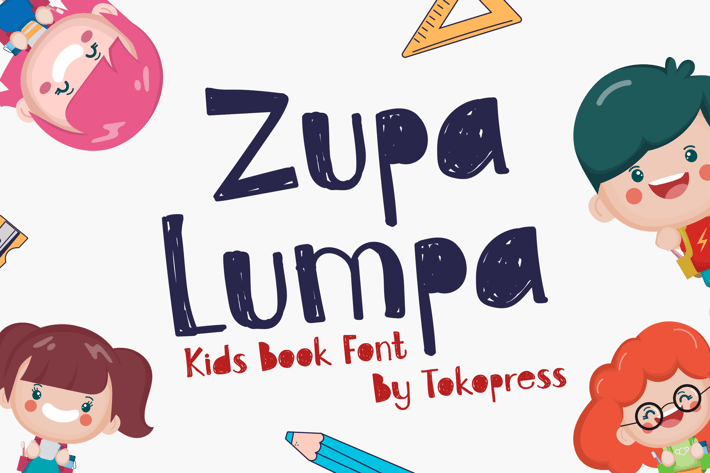
Zupa Lumpa- Cute kids font
Zupa Lumpa- Cute Kids Font
Bring your playful projects to life with Zupa Lumpa, a joyful kids display typeface featuring rounded shapes, soft curves, and a bouncy baseline for a friendly and hand-drawn vibe. Designed for child-centric content, this expressive and whimsical font adds warmth and personality to branding, school posters, and kids' apps with its gentle, cartoon-inspired letterforms.
Zupa Lumpa’s quirky structure and easy readability make it ideal for any creative space where fun, imagination, and clarity must coexist. Whether you’re crafting a fairy tale cover, a daycare flyer, or educational worksheets, its visual tone bridges cheerful energy with clear communication.
Perfect for children’s branding, playful product packaging, classroom resources, or editorial spreads in kids' magazines, Zupa Lumpa delivers a soft yet high-impact presence. Its rounded and dynamic flow taps into the emotional goals of educators, illustrators, and product designers looking to foster friendliness, safety, and trust in a young audience.
The font's vibrant personality works beautifully across both print and digital formats—think kids’ YouTube thumbnails, baby product labels, or storytelling apps. Zupa Lumpa brings a smile to every letter.
Key Features
Why You’ll Love Zupa Lumpa:
- Soft, Friendly Shapes: Carefully crafted with child-safe curves and bouncy proportions
- Whimsical Character: Adds charm and voice to any design for younger audiences
- Highly Versatile: Works across packaging, apps, posters, labels, and storybooks
- Balanced Readability: Playful yet functional—readable even in energetic layouts
- Memorable Style: Perfect for strong branding in the kid-centric and toy industries
Ready to make your kid-focused designs more delightful and engaging? Add a dose of joy and personality to your next project with Zupa Lumpa. Whether you’re launching a storybook series or branding a daycare startup, this font is the perfect design companion.
Bring your playful projects to life with Zupa Lumpa, a joyful kids display typeface featuring rounded shapes, soft curves, and a bouncy baseline for a friendly and hand-drawn vibe. Designed for child-centric content, this expressive and whimsical font adds warmth and personality to branding, school posters, and kids' apps with its gentle, cartoon-inspired letterforms.
Zupa Lumpa’s quirky structure and easy readability make it ideal for any creative space where fun, imagination, and clarity must coexist. Whether you’re crafting a fairy tale cover, a daycare flyer, or educational worksheets, its visual tone bridges cheerful energy with clear communication.
Perfect for children’s branding, playful product packaging, classroom resources, or editorial spreads in kids' magazines, Zupa Lumpa delivers a soft yet high-impact presence. Its rounded and dynamic flow taps into the emotional goals of educators, illustrators, and product designers looking to foster friendliness, safety, and trust in a young audience.
The font's vibrant personality works beautifully across both print and digital formats—think kids’ YouTube thumbnails, baby product labels, or storytelling apps. Zupa Lumpa brings a smile to every letter.
Key Features
Why You’ll Love Zupa Lumpa:
- Soft, Friendly Shapes: Carefully crafted with child-safe curves and bouncy proportions
- Whimsical Character: Adds charm and voice to any design for younger audiences
- Highly Versatile: Works across packaging, apps, posters, labels, and storybooks
- Balanced Readability: Playful yet functional—readable even in energetic layouts
- Memorable Style: Perfect for strong branding in the kid-centric and toy industries
Ready to make your kid-focused designs more delightful and engaging? Add a dose of joy and personality to your next project with Zupa Lumpa. Whether you’re launching a storybook series or branding a daycare startup, this font is the perfect design companion.